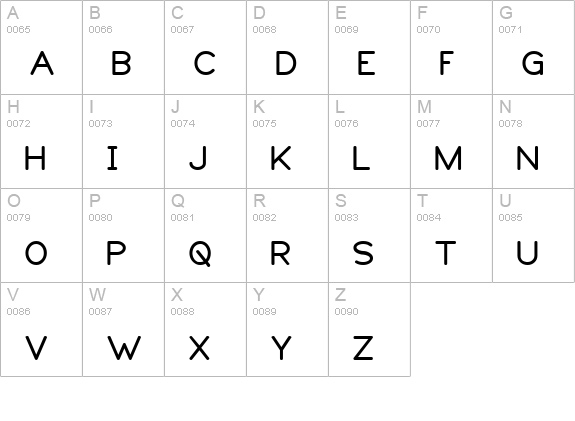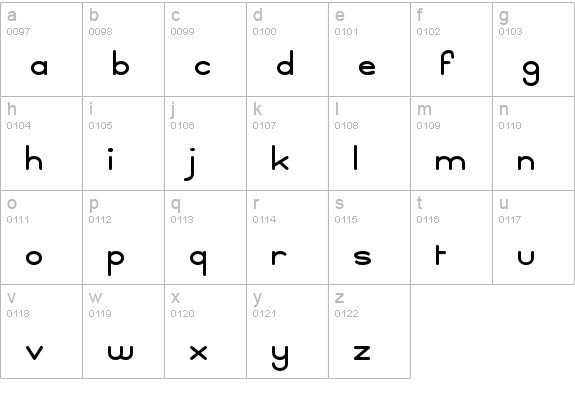
Introducing Copyright Violations font - a striking and bold typeface that demands attention with its unique design. This edgy font is perfect for adding a touch of rebelliousness to your projects, making a statement with its sharp angles and bold strokes. The Copyright Violations font is freely available to download at FontsMarket.com, making it accessible to all who seek to add a touch of defiance to their designs. Stand out from the crowd and make a bold statement with the Copyright Violations font today!